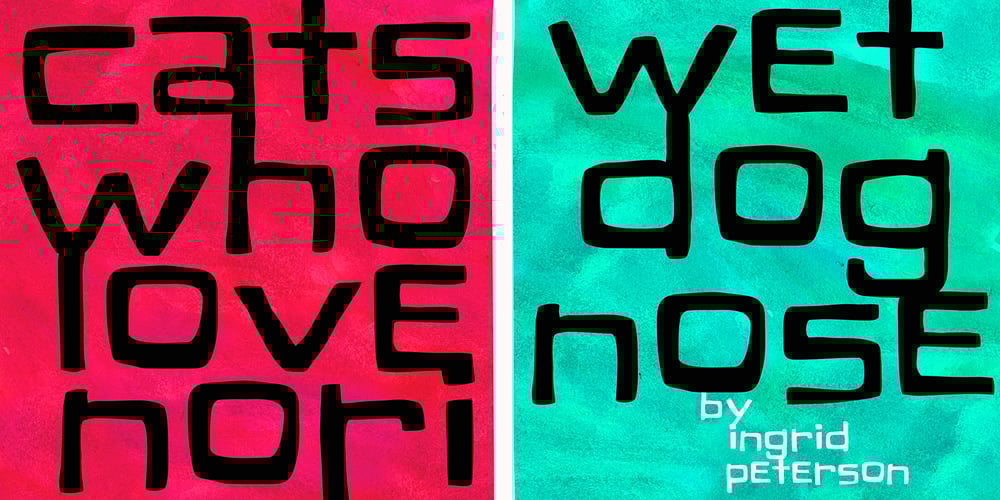
Orange Cat Font Family was designed by published by Atlantic Fonts. Orange Cat contains 1 styles and family package options. Like the cat that swallowed the canary, this font can’t hide its mischievous nature. Orange Cat is moody, athletic, and likes to play.